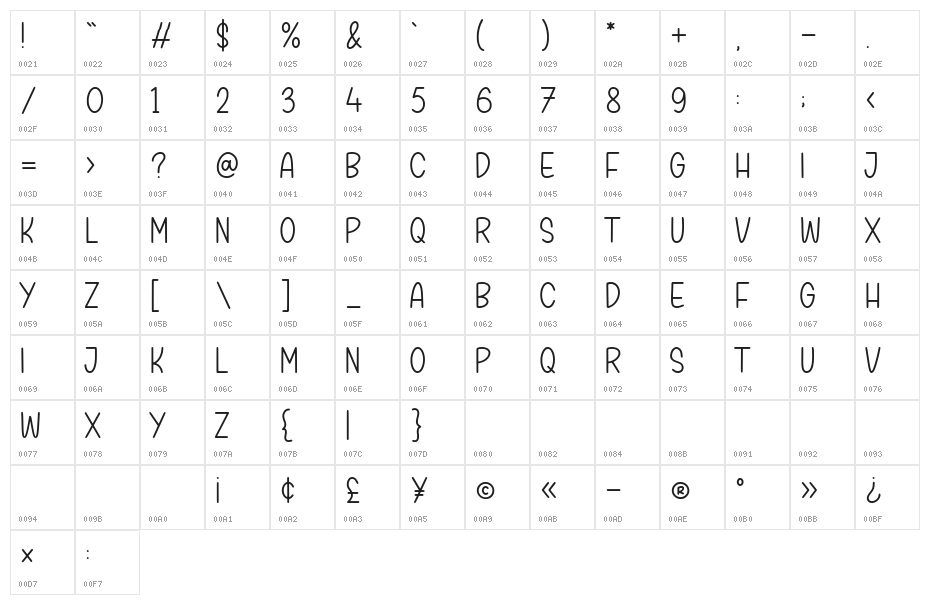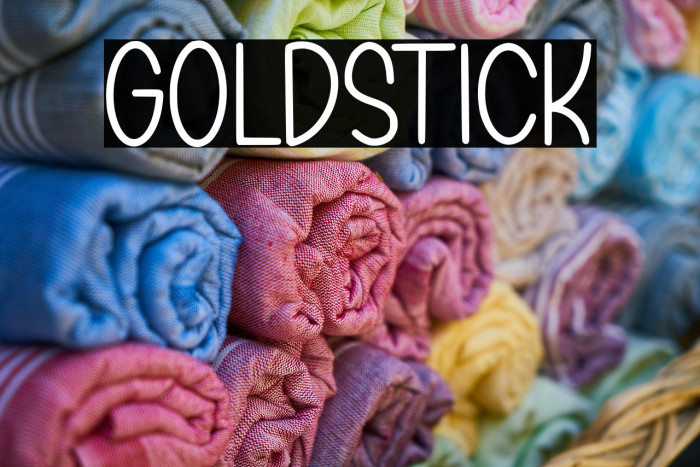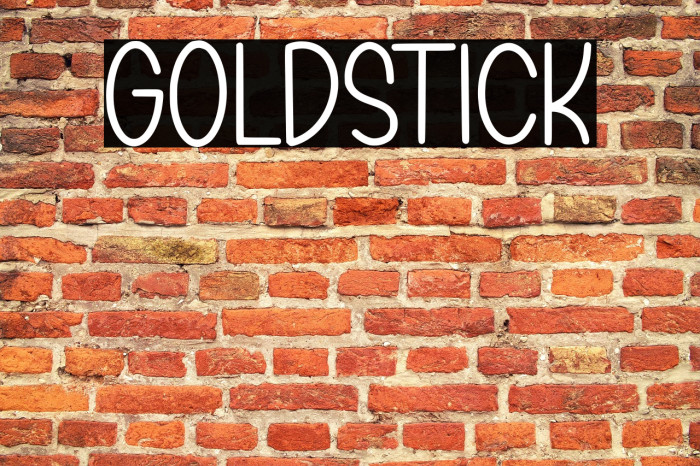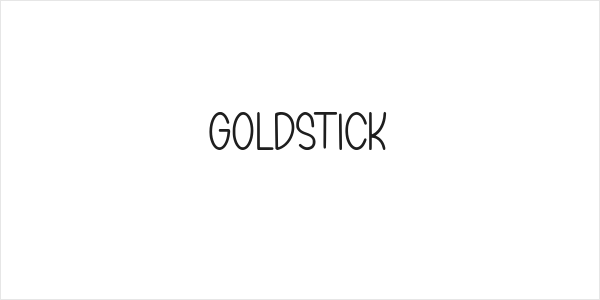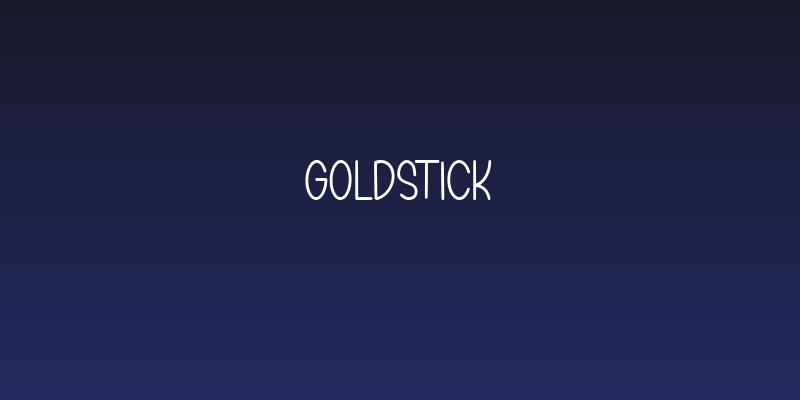
GOLDSTICK Font
GOLDSTICK Description
This font features a playful and casual handwritten style, characterized by its rounded edges and consistent stroke width. The letters are tall and slightly narrow, giving a sense of elegance and simplicity. The font maintains a uniform appearance with smooth curves and a friendly demeanor, making it approachable and easy to read. Its design is clean and modern, suitable for a variety of applications where a personal touch is desired. The numerals and special characters align well with the overall style, ensuring coherence across different uses.
| Use Case | Headlines, Logos, Informal Texts |
| Proposed Projects | Ideal for children's books, greeting cards, casual branding, and social media graphics. |